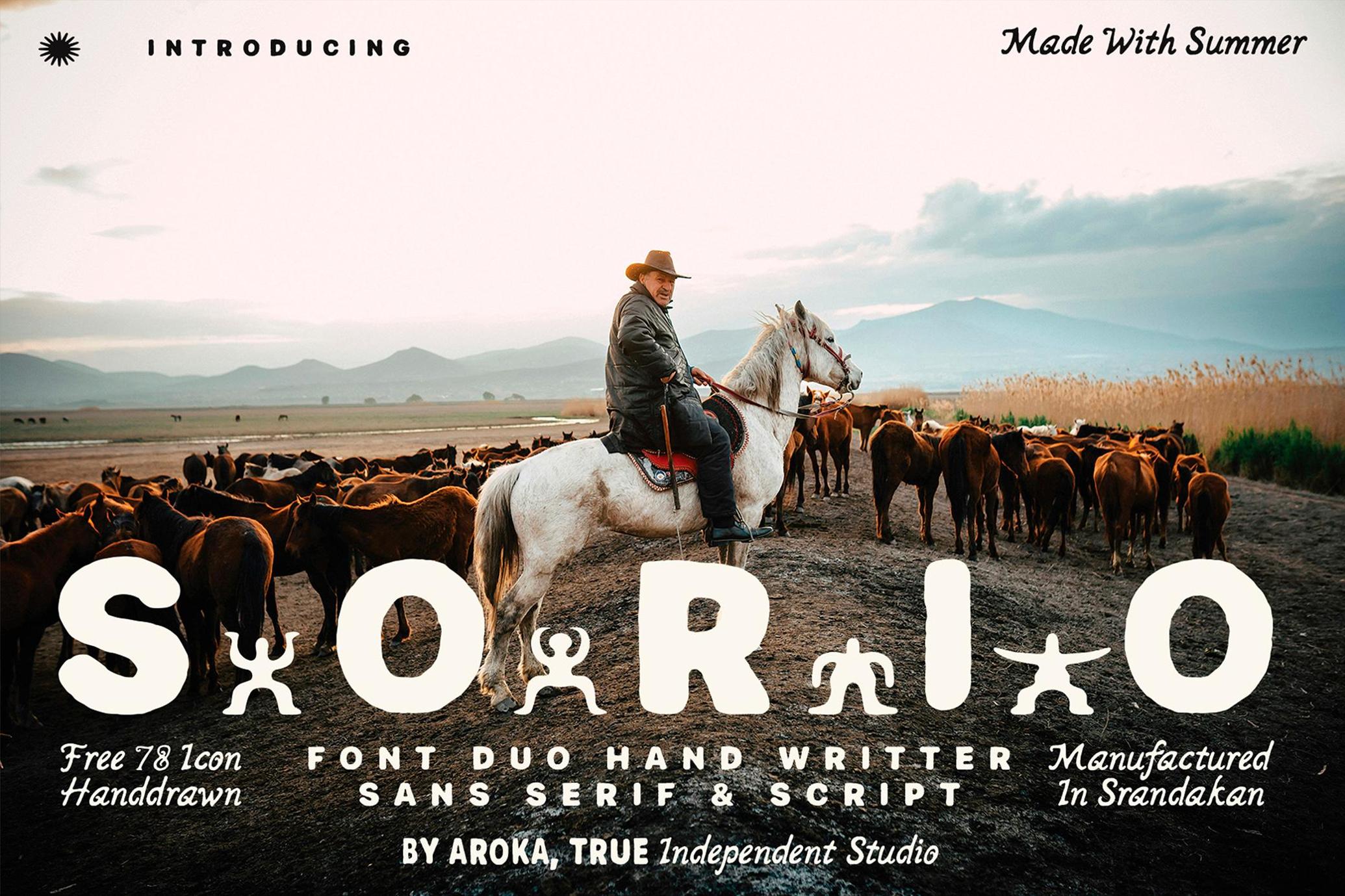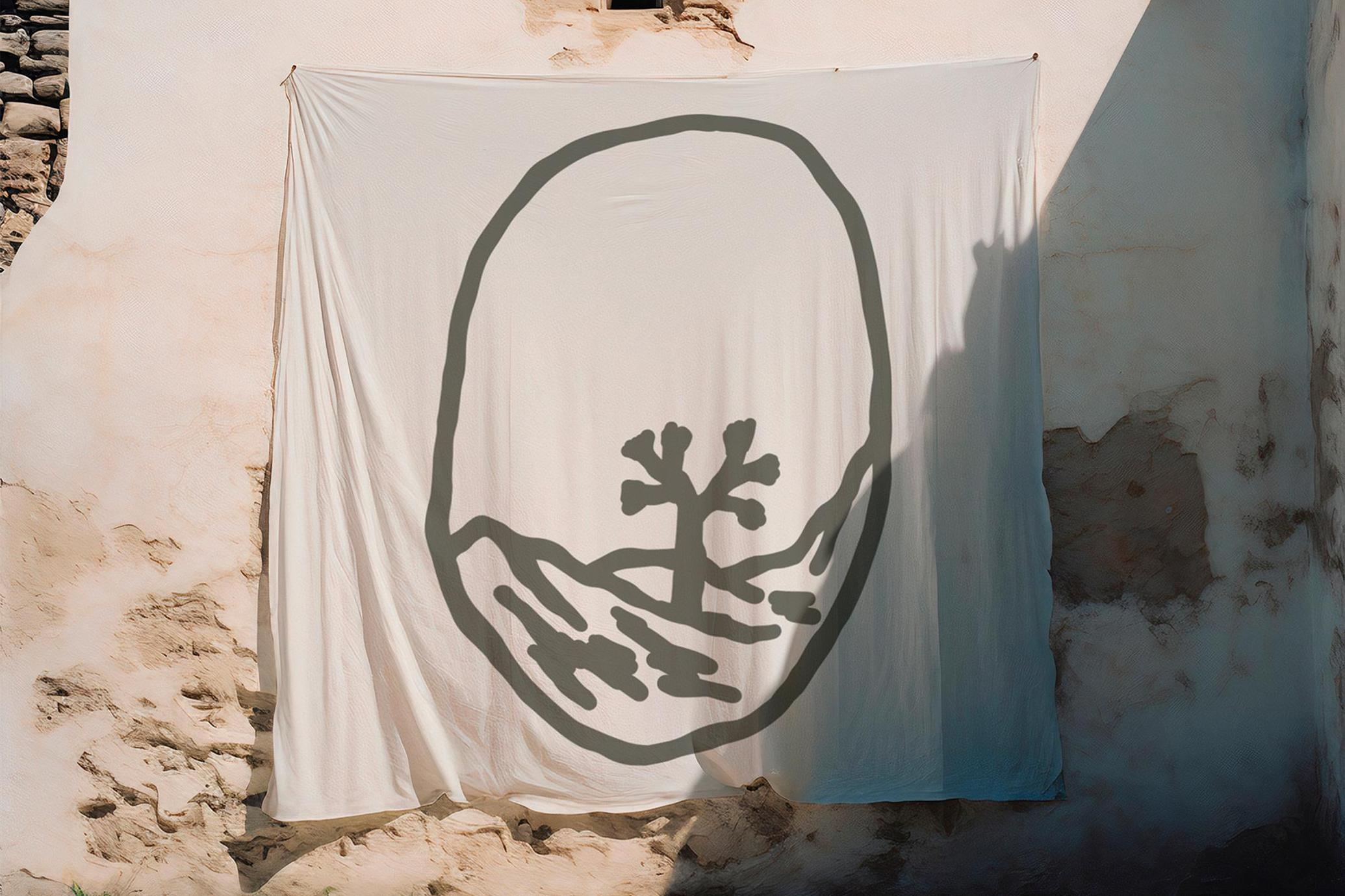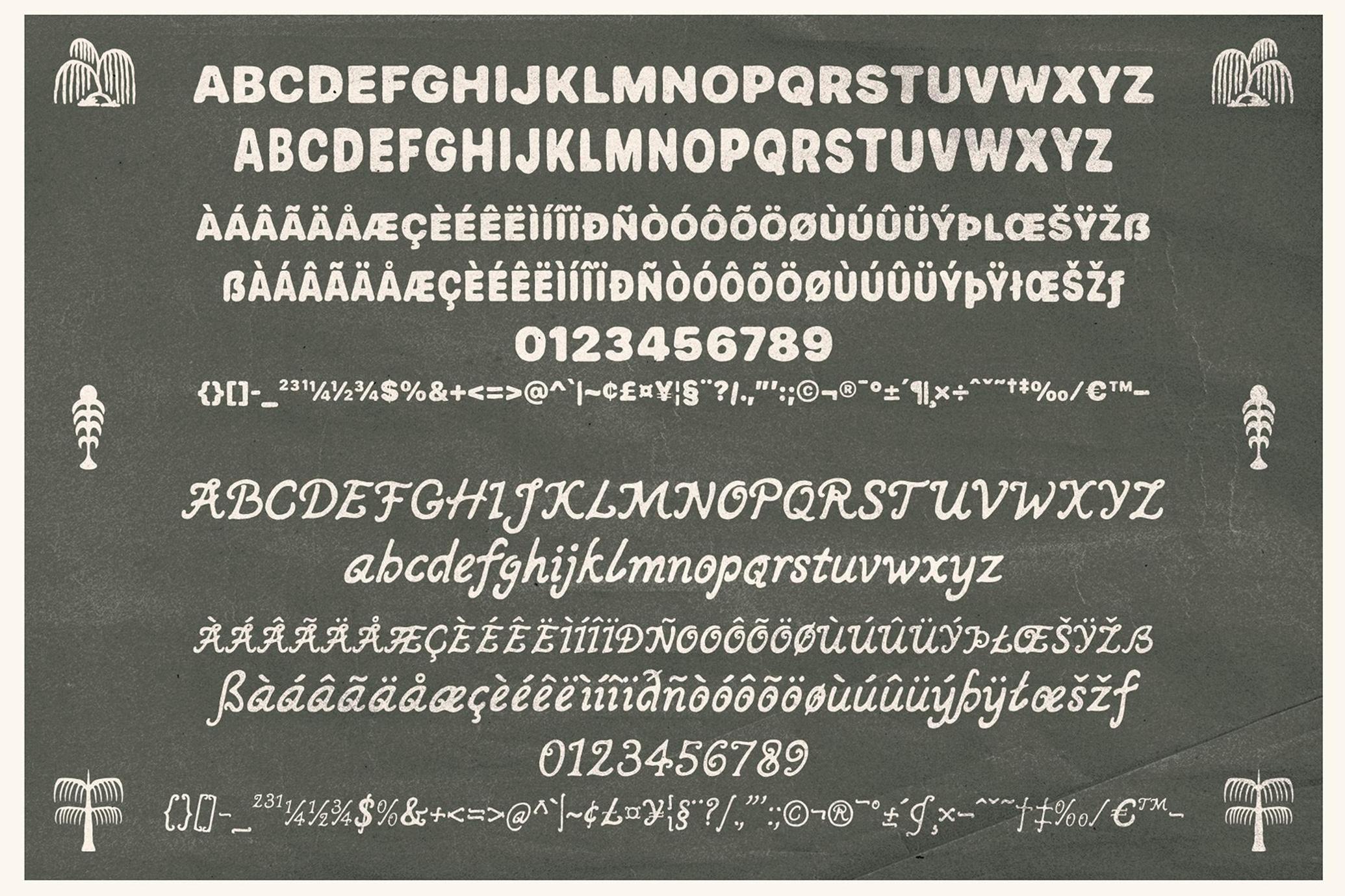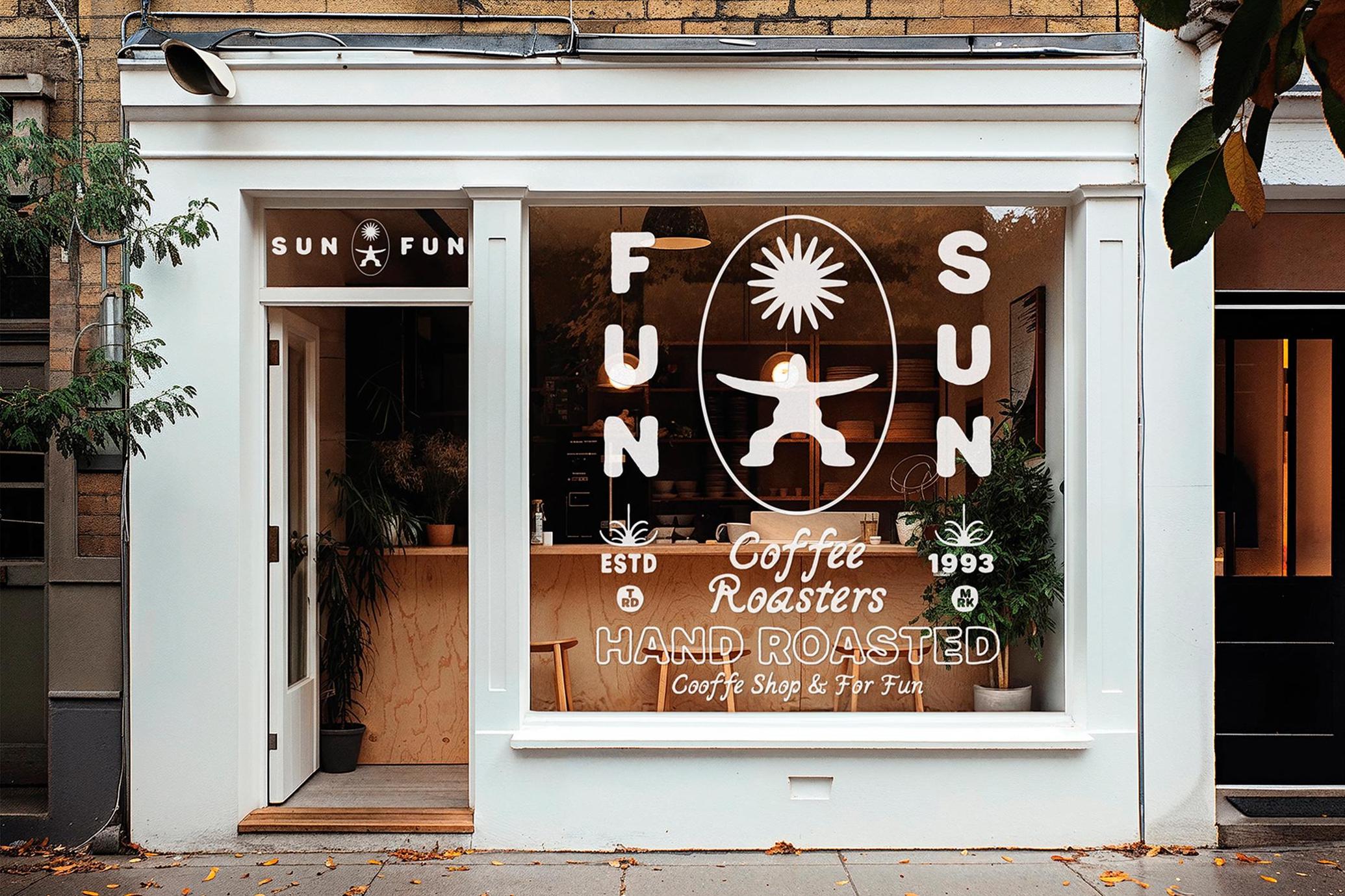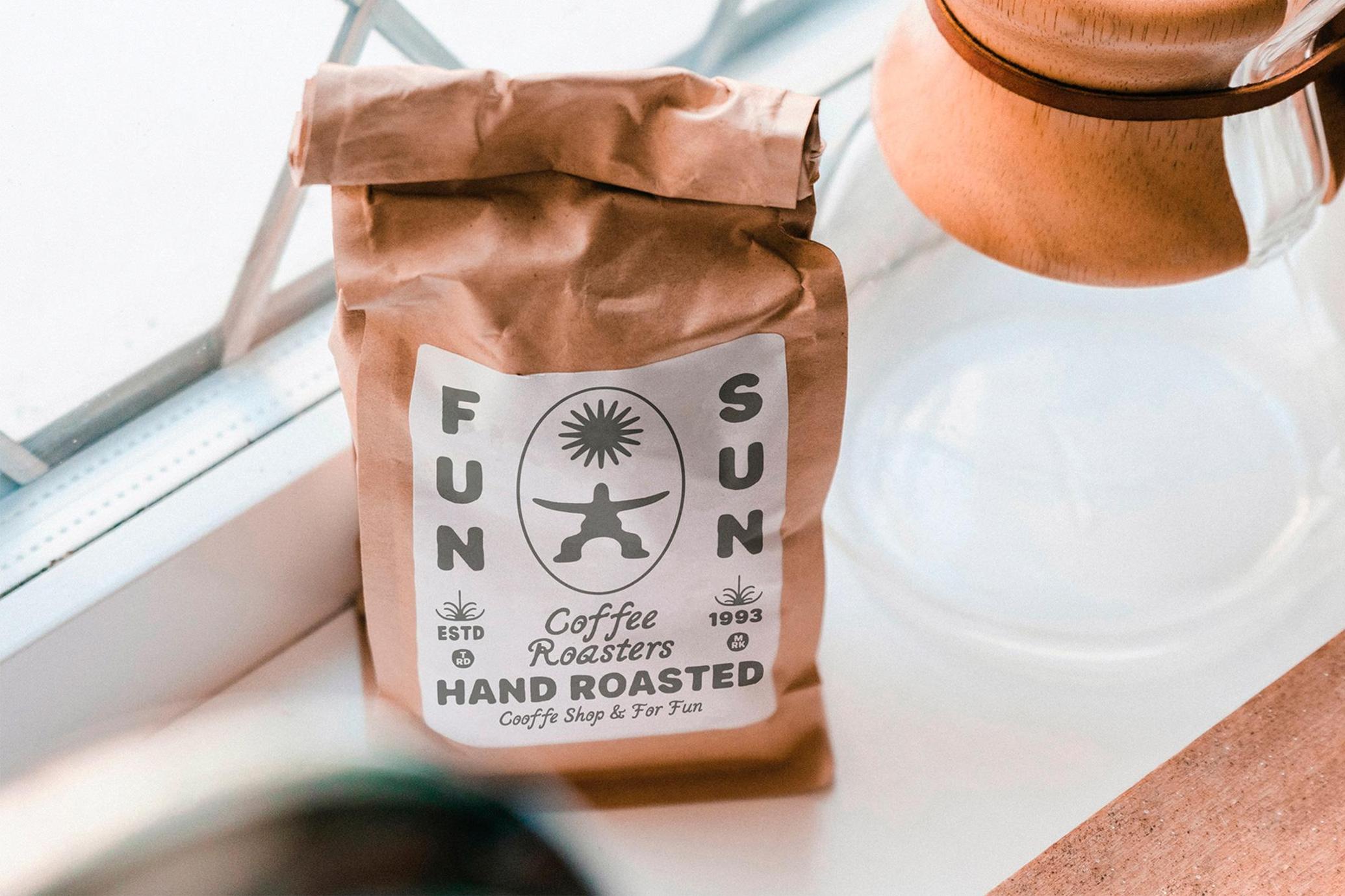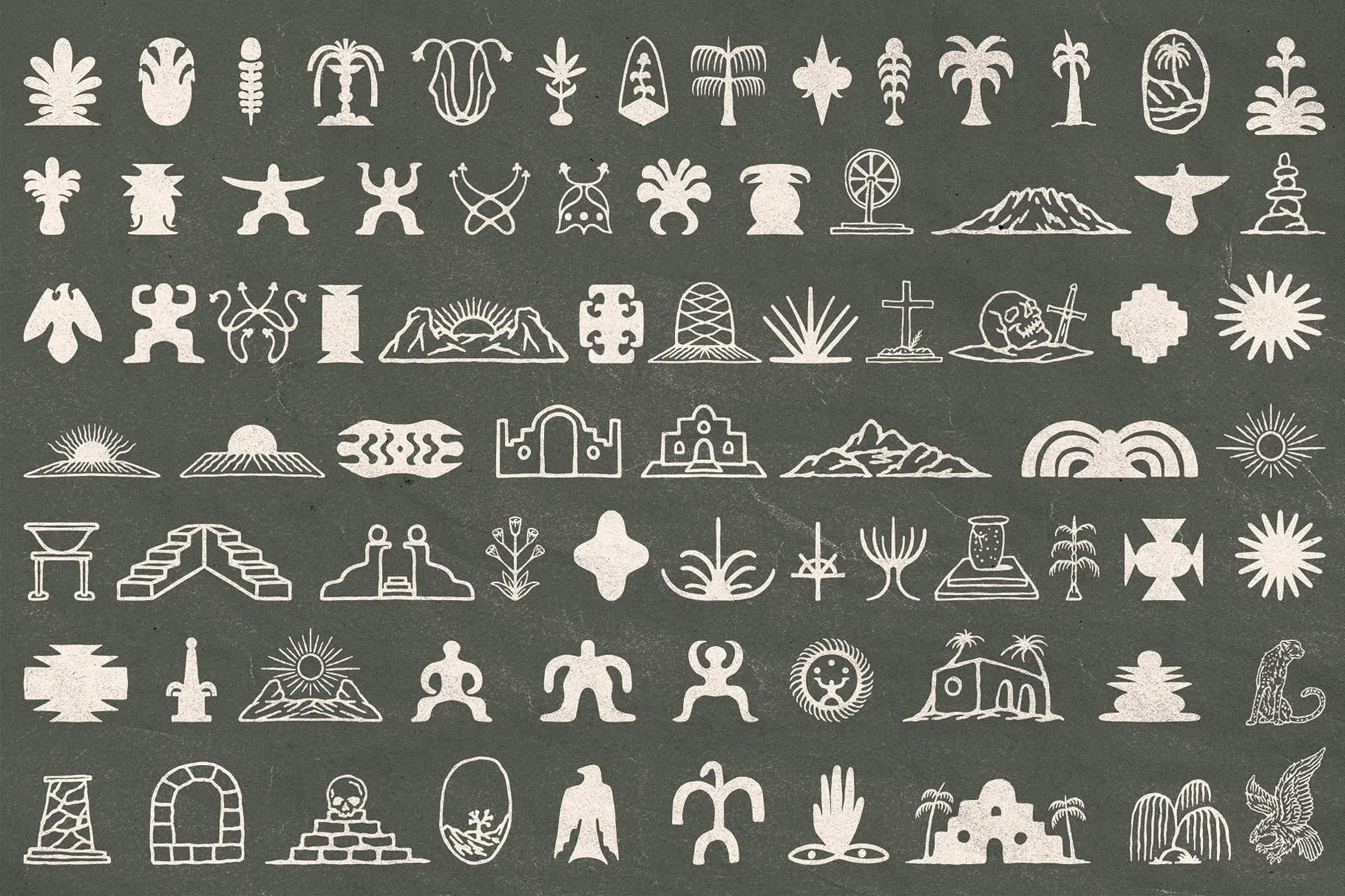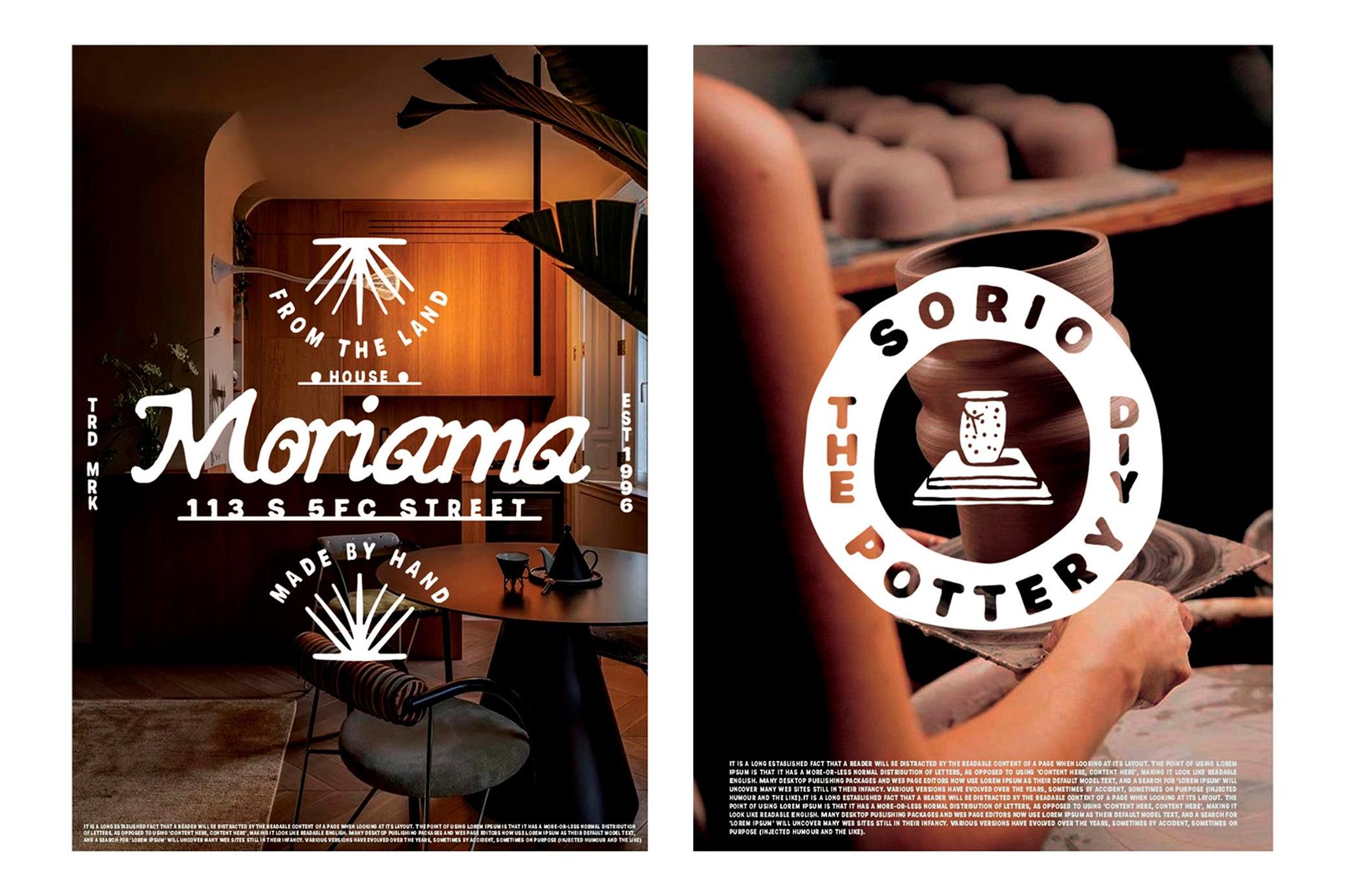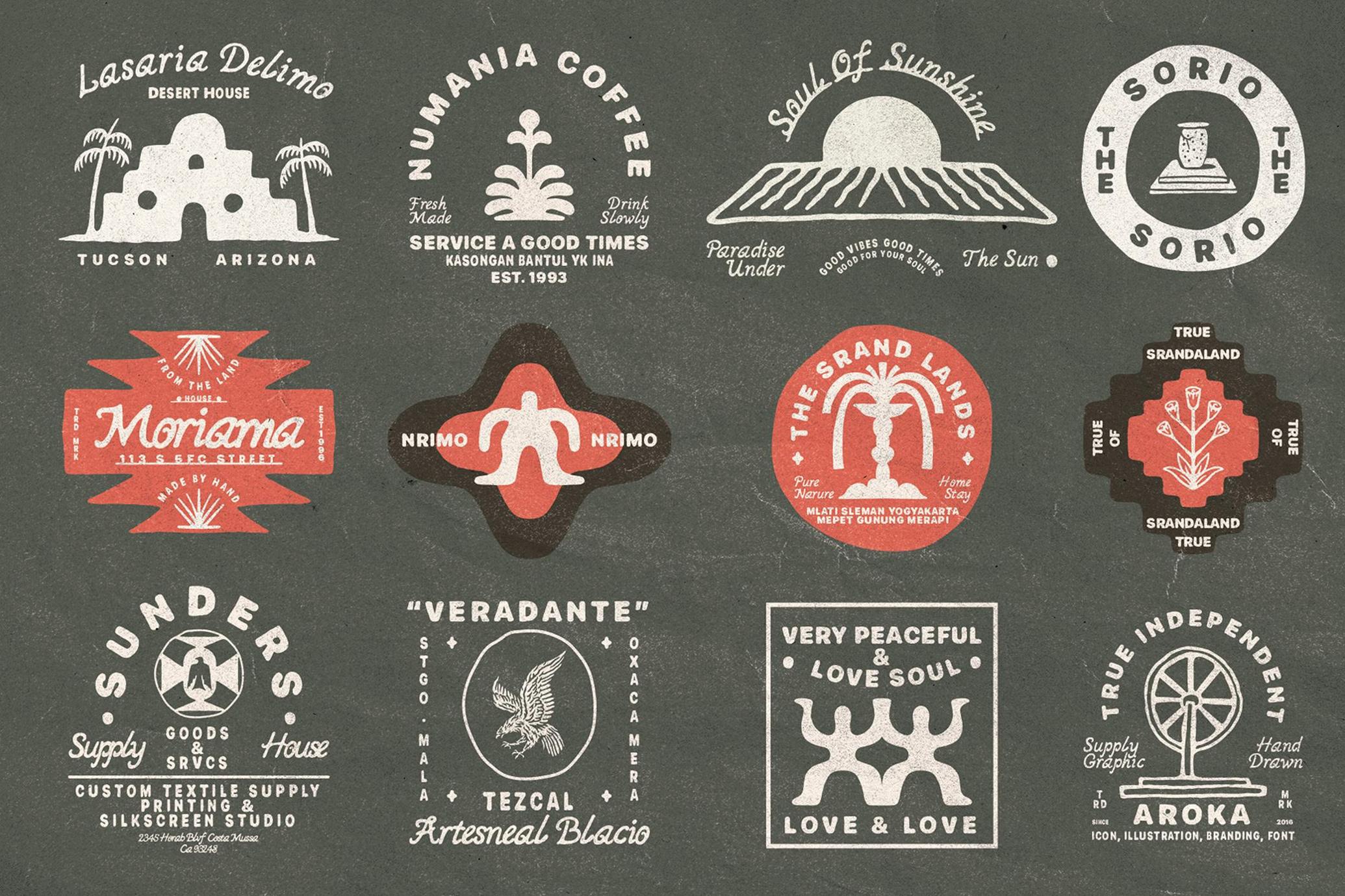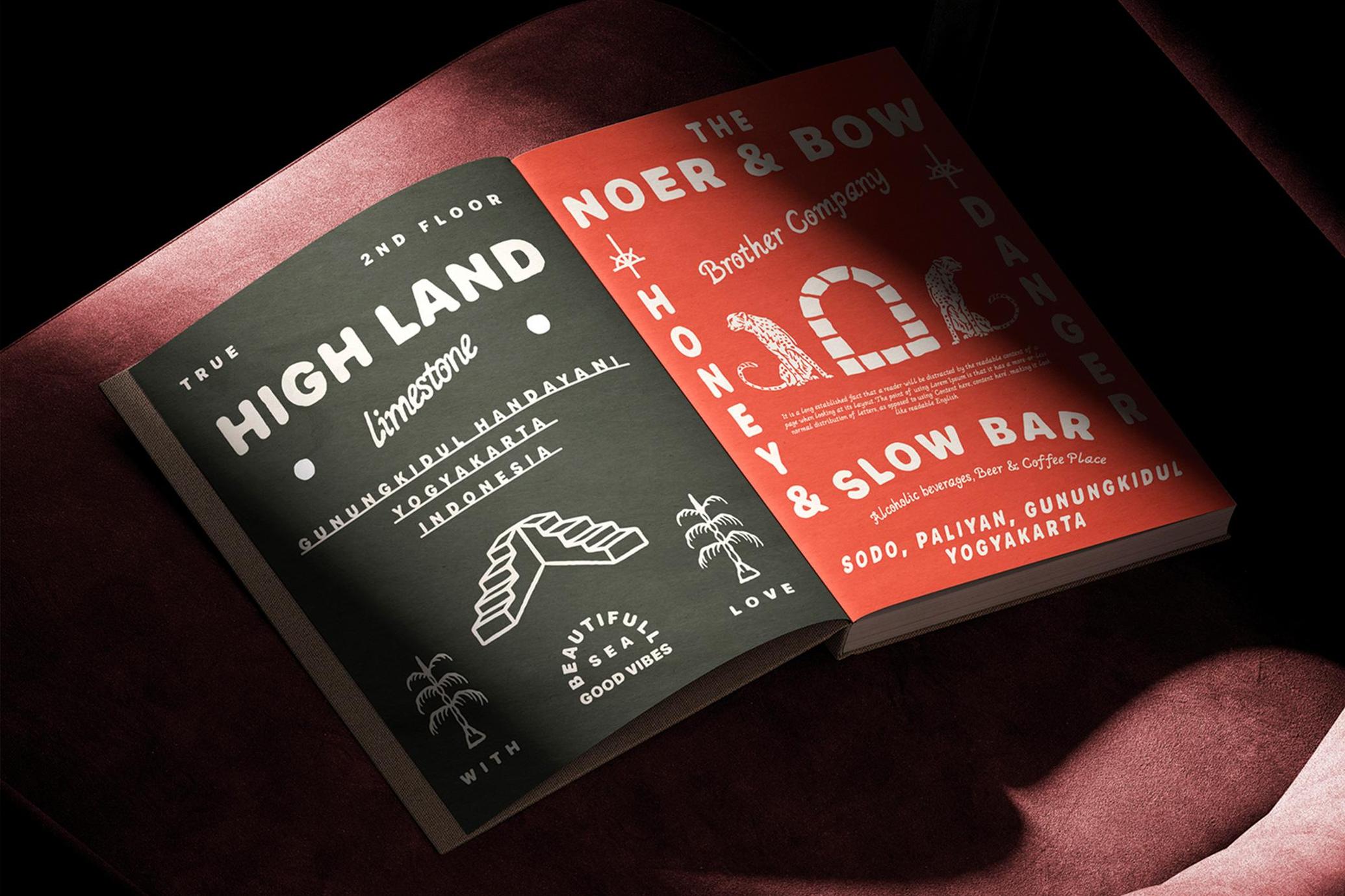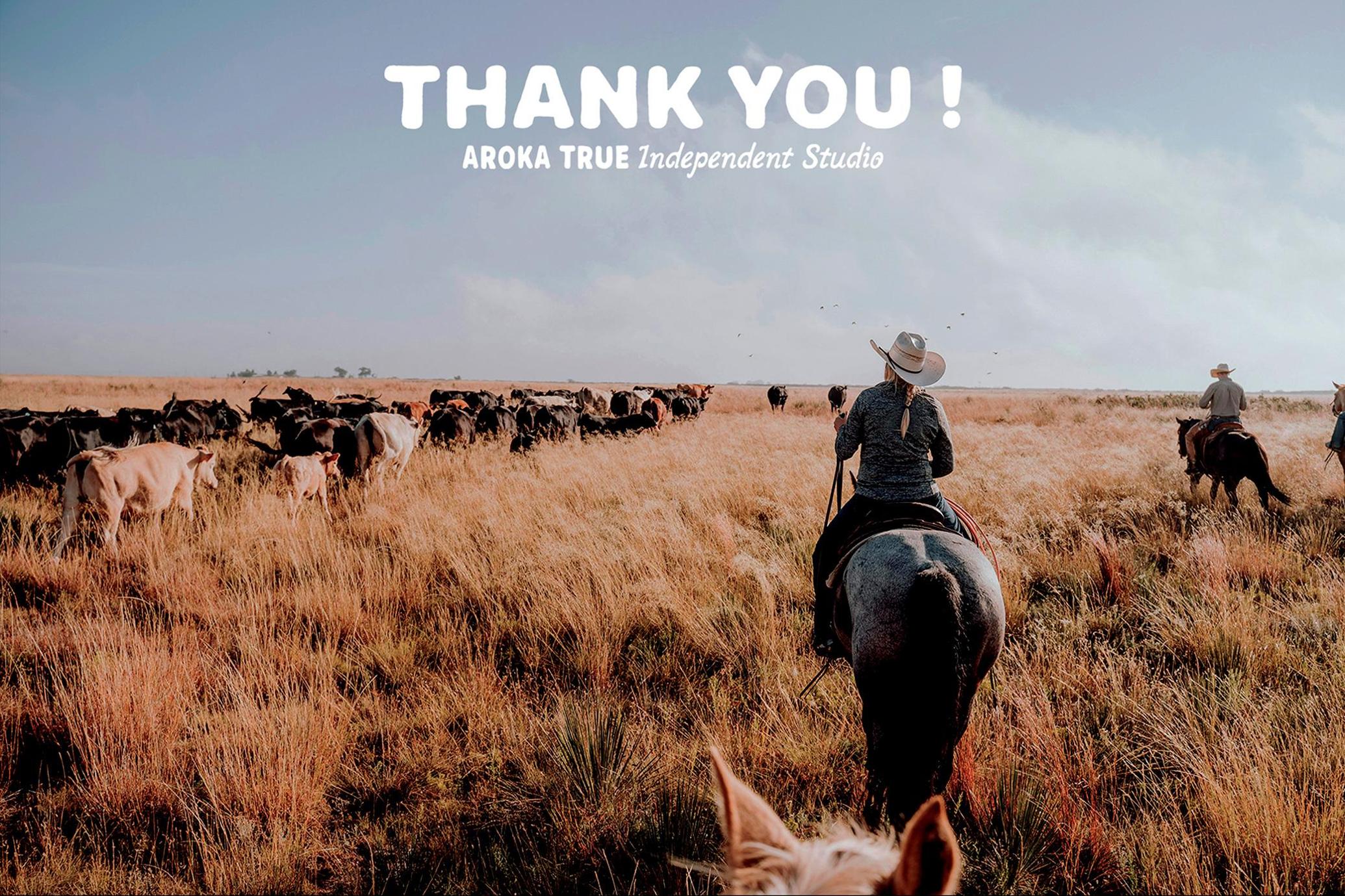
SORIO Hand-Written Font Duo
SORIO duo draws on visual motifs from Latin American folk design. The all-caps sans serif is chunky and naive, echoing hand-painted signage, cattle tags, and festival banners. It's got two character styles, multilingual support, and an extended set of symbols.
The script, by contrast, softens into a more ornamental beat — like a sun-faded postcard or vintage tequila label. It supports an extended Latin character set, with uppercase, lowercase, numerals, punctuation, and symbols, e.g., fractions, currencies, and more.
The accompanying icon set (78 elements in AI, SVG, and PNG) deepens the reference pool: stylized agave plants, adobe facades, jagged mountains, sun glyphs, and figures rooted in Mesoamerican symbology. These aren't literal reproductions, though — more like loose, affectionate nods to regional visual language.